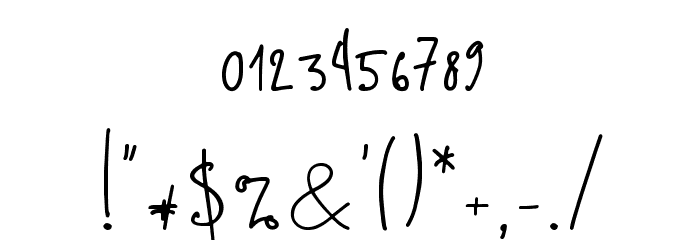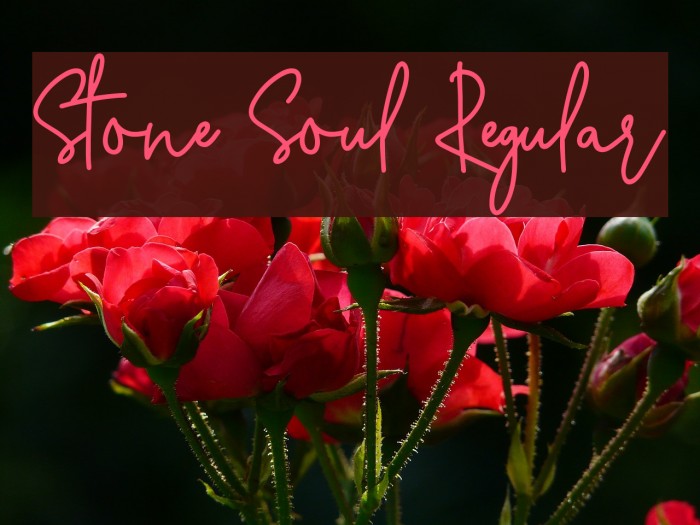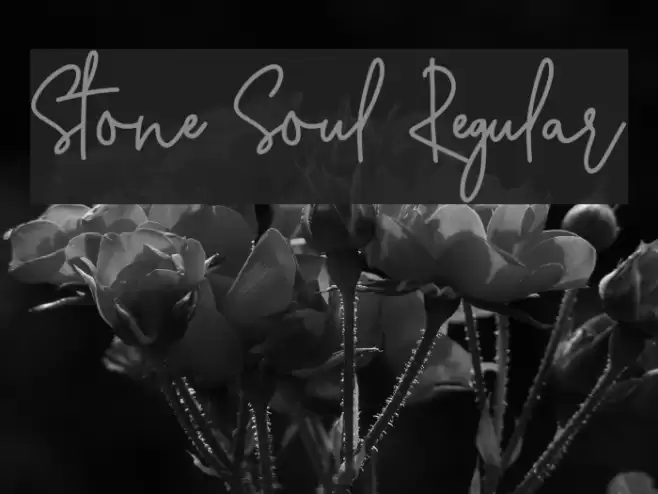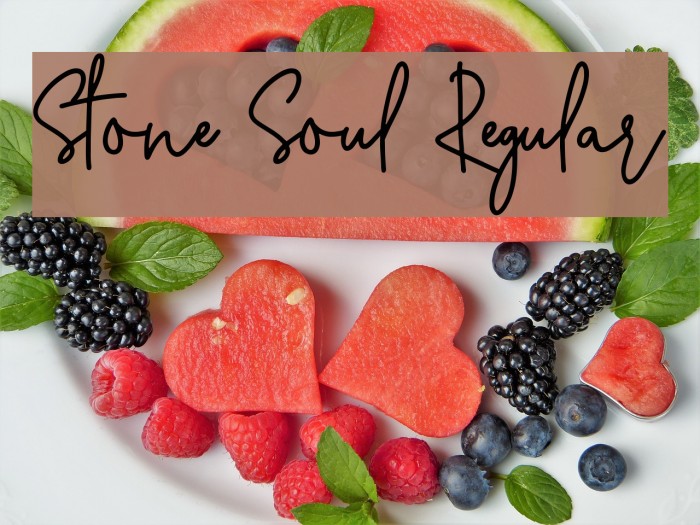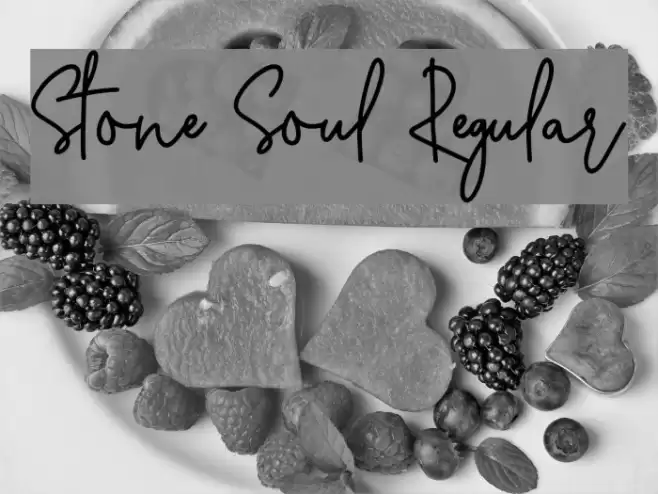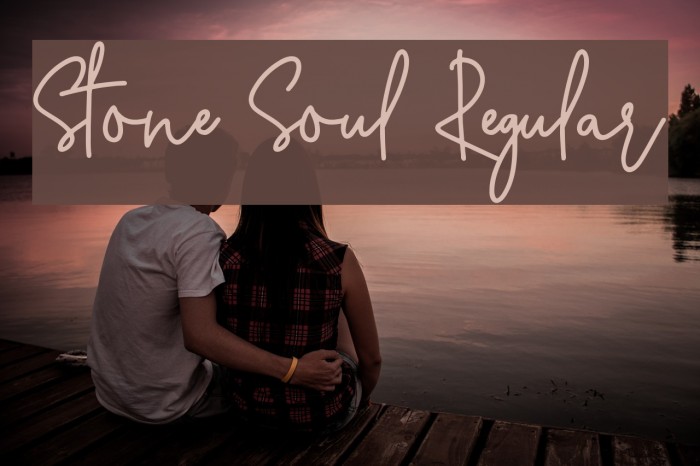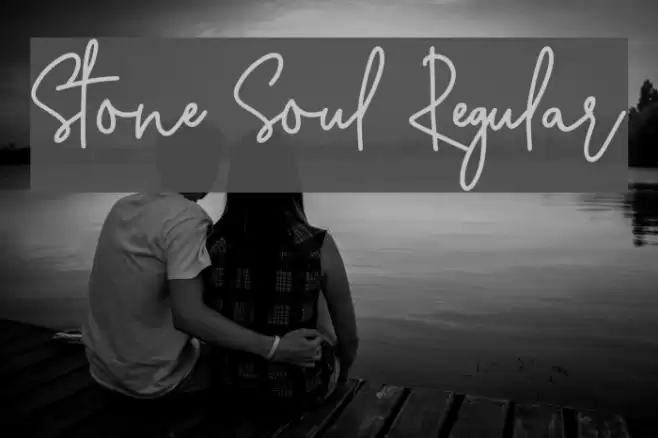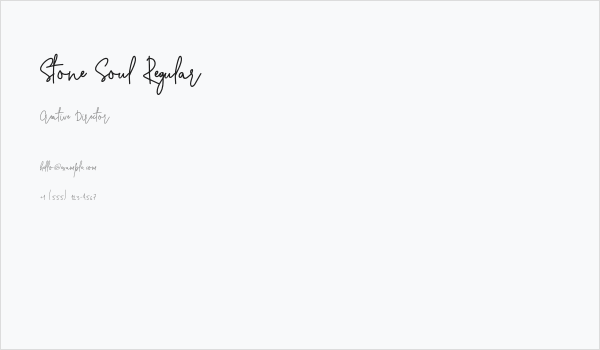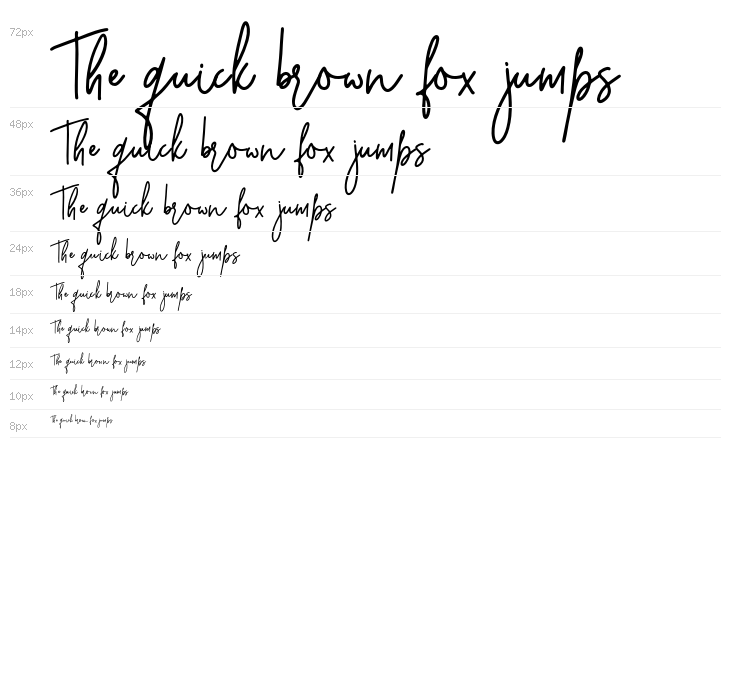
Stone Soul Regular Font
Stone Soul Regular Description
This font exudes a dynamic and expressive style, characterized by its handwritten appearance. The letters are fluid and slightly irregular, giving it a personal and artistic touch. The uppercase letters are bold and assertive, while the lowercase letters maintain a consistent flow with elongated strokes. Numbers and special characters follow the same handwritten aesthetic, adding to the font's cohesive look. The overall design is informal yet stylish, making it suitable for creative projects that require a personal touch.
| Proposed Projects | Ideal for personal branding, artistic projects, invitations, greeting cards, and creative social media graphics. |